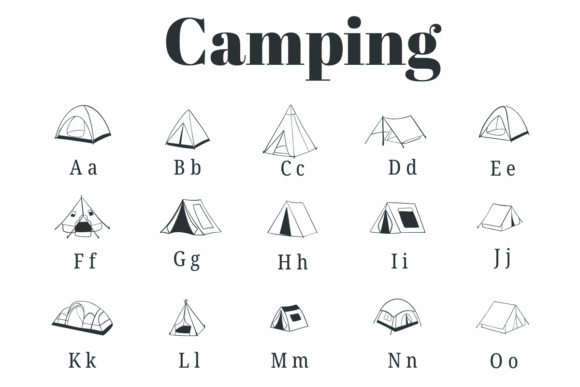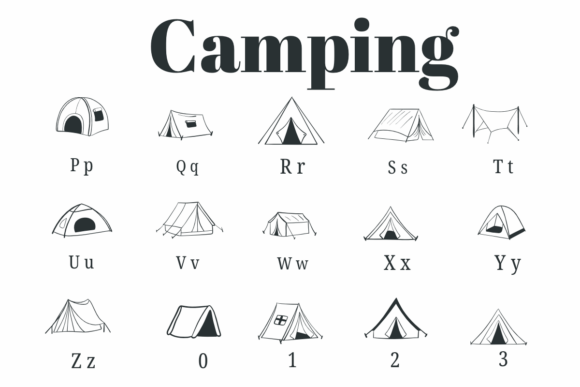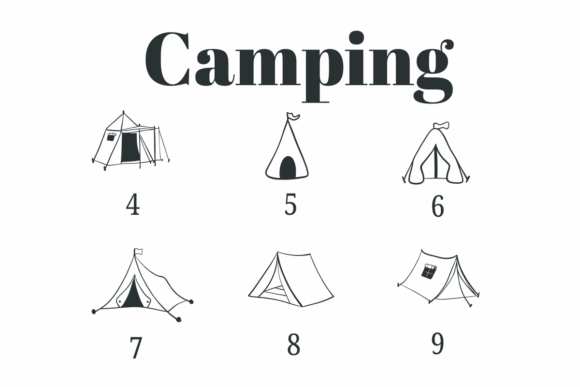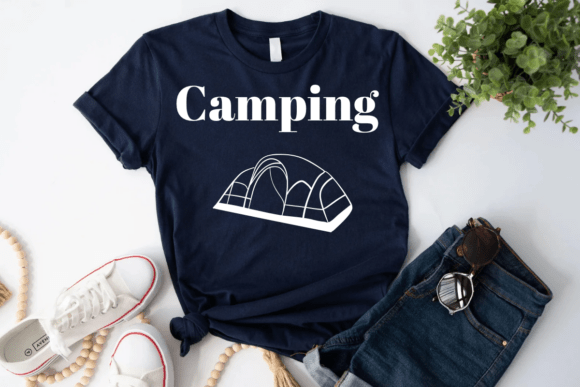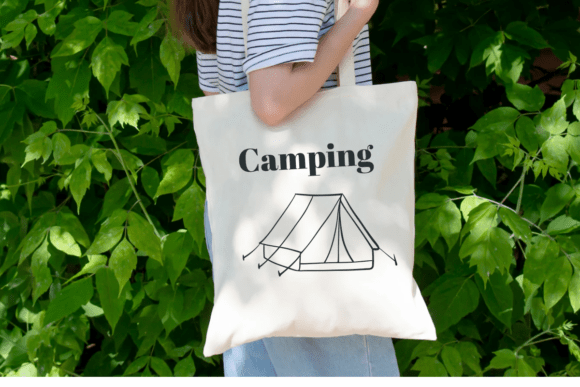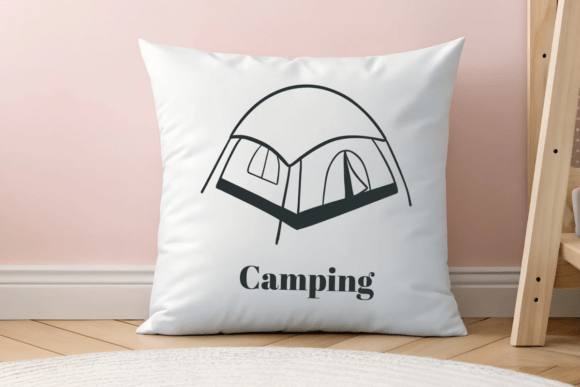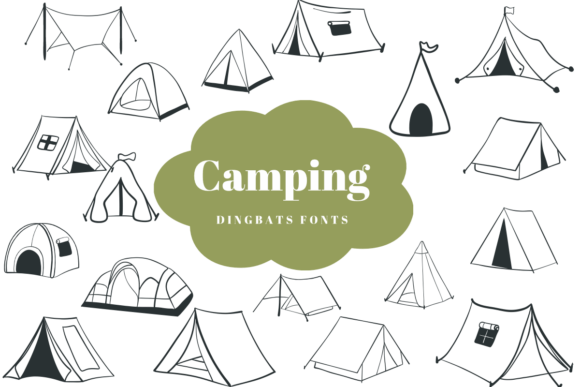
Camping Font: A Rustic yet Sophisticated Dingbats Font for Outdoor Enthusiasts
Are you a designer, craftsperson, or outdoor enthusiast looking for a unique and creative way to add a personal touch to your projects? Look no further than the Camping Font, a specialized dingbats font family that embodies the spirit of adventure and the great outdoors. This comprehensive collection of line-art illustrations features a wide variety of outdoor shelters, from traditional A-frame tents to modern dome tents, large multi-room camping structures, and minimalist tipis.
Aesthetic and Design
The Camping Font boasts a rustic, hand-drawn aesthetic that is both charming and sophisticated. Each icon is rendered with a clean, monolinear stroke and simple geometric shading, providing a sense of professional artistry and attention to detail. The font’s design is perfect for outdoor lifestyle branding, camping equipment cataloging, national park wayfinding signage, and travel editorial graphics. The Camping Font’s versatility and visual appeal make it an excellent choice for designers and crafters seeking to add a touch of adventure and personality to their work.
- Rustic yet sophisticated design: The Camping Font’s unique blend of rustic charm and sophisticated design makes it perfect for a wide range of applications, from outdoor gear catalogs to travel editorials.
- Wide variety of illustrations: The font features a comprehensive collection of line-art illustrations depicting different styles of outdoor shelters, ensuring that you’ll find the perfect icon to suit your needs.
- Clean and professional rendering: Each icon is rendered with a clean, monolinear stroke and simple geometric shading, providing a sense of professional artistry and attention to detail.
- Versatile and adaptable: The Camping Font is suitable for a wide range of applications, including outdoor lifestyle branding, camping equipment cataloging, national park wayfinding signage, and travel editorial graphics.
Applications and Use Cases
The Camping Font is perfect for a variety of applications, including:
- Outdoor lifestyle branding: Add a touch of adventure and personality to your outdoor gear brand with the Camping Font’s unique and rustic illustrations.
- Camping equipment cataloging: Use the Camping Font to create visually appealing and informative catalogs for your camping gear business.
- National park wayfinding signage: The Camping Font’s clear and simple design makes it perfect for wayfinding signage in national parks and other outdoor recreational areas.
- Travel editorial graphics: Add a touch of sophistication and adventure to your travel editorials with the Camping Font’s beautiful illustrations.
Design and Craft Inspiration
For designers and crafters, the Camping Font offers a wealth of inspiration and creative possibilities. Use the font to:
- Create custom camping-themed crafts: From handmade cards to customized camping gear, the Camping Font is perfect for a wide range of DIY projects.
- Design unique outdoor-inspired artwork: Use the Camping Font to create stunning artwork that captures the beauty and adventure of the great outdoors.
- Develop bespoke branding and marketing materials: Add a touch of personality and adventure to your brand with custom branding and marketing materials featuring the Camping Font.
The Camping Font is a premier asset for anyone looking to add a touch of adventure and personality to their designs. With its rustic yet sophisticated aesthetic, comprehensive collection of illustrations, and versatile design, this specialized dingbats font family is perfect for outdoor enthusiasts, designers, and crafters alike. Whether you’re creating outdoor gear catalogs, travel editorials, or custom camping-themed crafts, the Camping Font is sure to inspire and elevate your work.